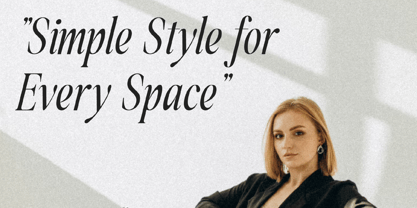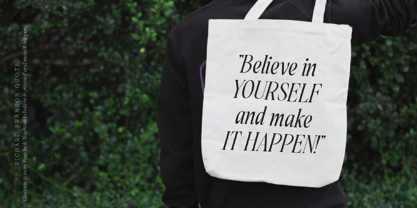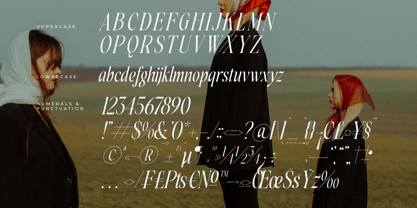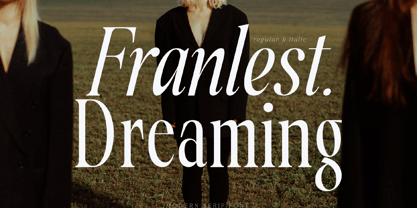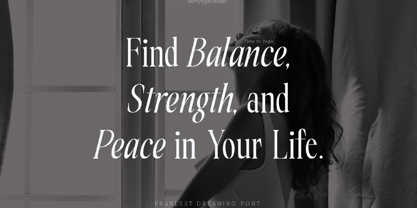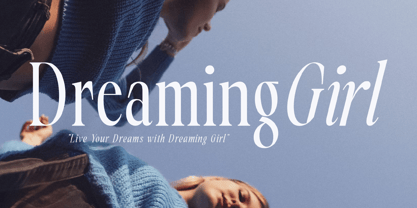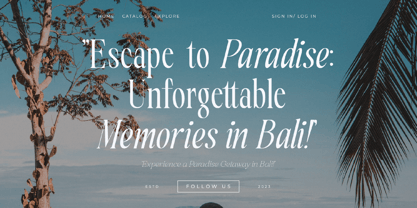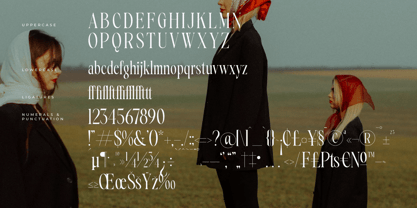
Franlest Dreaming
von Letterena Studios
Die Schriftfamilie Franlest Dreaming wurde von Heru Utama Putra entworfen und von Letterena Studios veröffentlicht. Franlest Dreaming enthält 2 Stile und Familienpaketoptionen. Mehr über diese Familie
Franlest Dreaming. This exquisite modern serif font commands attention through its stunningly balanced blend of traditional structure and contemporary finesse. Featuring dramatically high-contrast strokes and finely honed serifs, Franlest Dreaming ensures every headline and logotype delivers maximum visual impact, projecting an aura of timeless sophistication.
Designer: Heru Utama Putra
Foundry: Letterena Studios